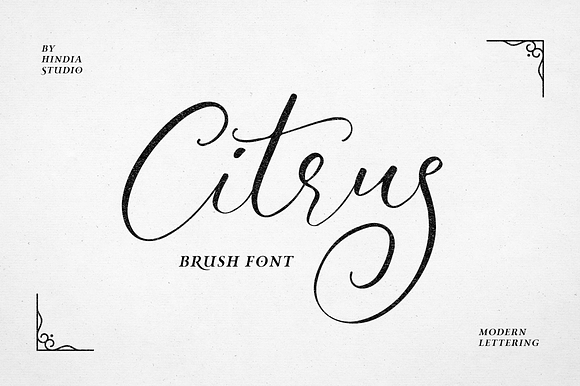
Citrus Font
CITRUS SCRIPT | An elegant looking font
Citrus is a handmade script with a soft elegant touch. It feels natural, friendly, and timeless. Citrus script can be used for various purposes such as wedding invitations, thank you cards, quotes, greeting cards, logos, business cards, and etc.
Accents (Multilingual characters)
Stylistic alternates 01 : a-z
Stylistic alternates 02 : a-z
Stylistic alternates 03 : b,d,f,h,k,l